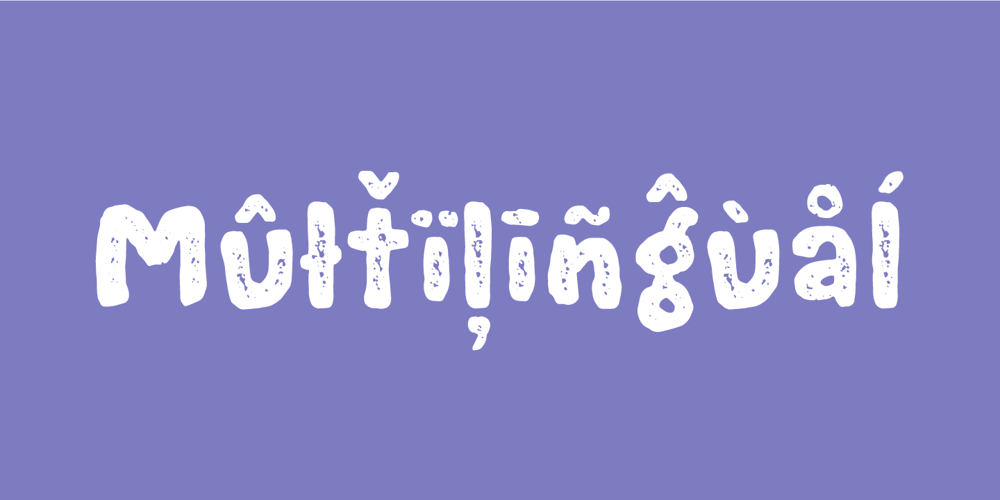
I Dream Of Cake Font Family was designed by Jakob Fischer and published by PizzaDude.dk. I Dream Of Cake contains 2 styles and family package options. The other day I had a dream of a cake – one that was both crispy and creamy. Just like that favorite one that my wife makes! Yummy! ๐ This font also has a lot of crunchy and munch things inside – play around with the contextual alternates (4 different versions of each lowercase letter!) and the Regular and Clean versions.